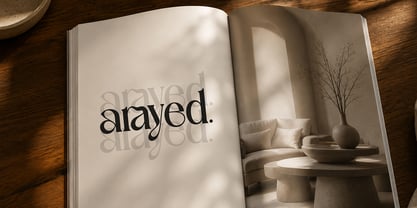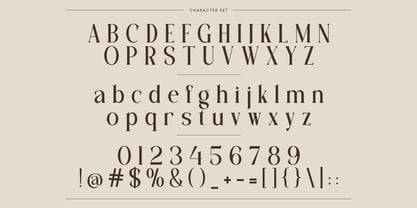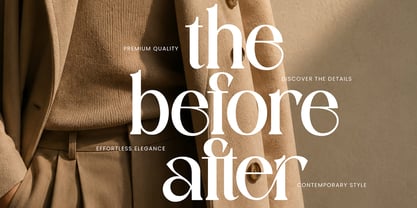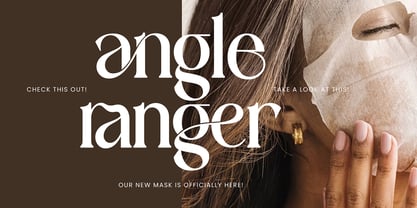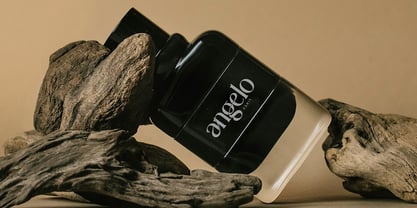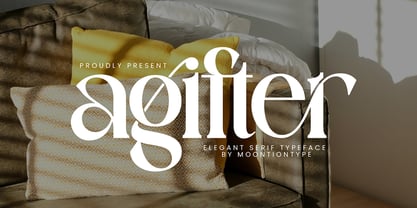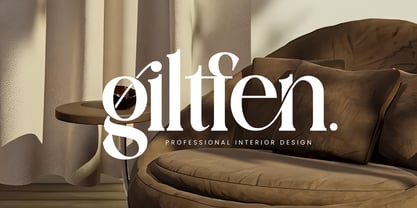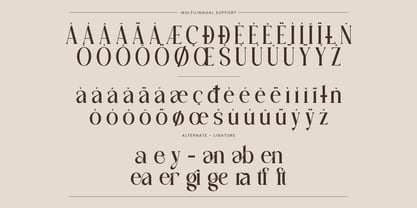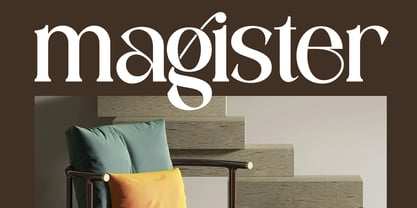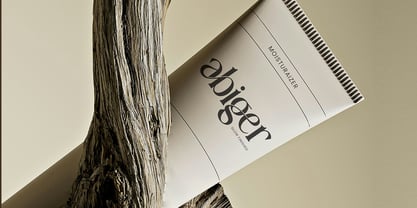
Agifter
von Moontiontype
Die Schriftfamilie Agifter wurde von Dinda Nur Dwiyanti entworfen und von Moontiontype veröffentlicht. Agifter enthält 1 Stile. Mehr über diese Familie
Introducing Agifter, an elegant serif typeface designed to bring timeless sophistication and modern luxury into every project. Featuring graceful curves, refined contrasts, and beautifully crafted letterforms, Agifter is perfect for creating premium branding with a distinctive editorial feel.
Whether you're designing fashion branding, wedding stationery, cosmetic packaging, magazine headlines, or social media content, Agifter delivers a classy and unforgettable visual identity.
The carefully designed characters provide a harmonious balance between classic elegance and contemporary minimalism, making this font versatile for both digital and print projects.
Agifter combines modern elegance with timeless serif aesthetics, making it an excellent choice for designers, entrepreneurs, and creatives looking to build sophisticated visual identities. Every letter has been carefully refined to create luxurious typography that feels graceful, stylish, and memorable.